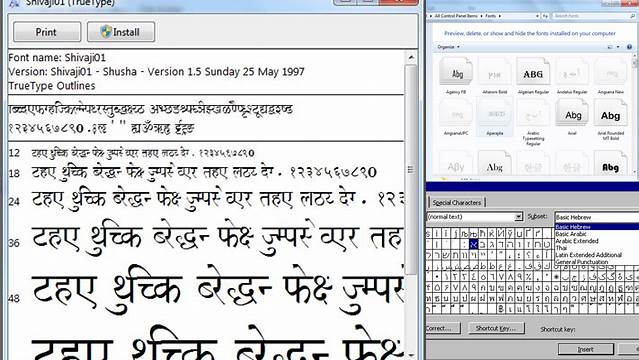
Marathi Font For MS Word 2010: Free Download & Guide
Hey guys, are you looking to add some Marathi flair to your documents in MS Word 2010? You're in luck! Getting a Marathi font for MS Word 2010 free download is easier than you might think. This guide is designed to walk you through the process step-by-step, ensuring you can type and read Marathi effortlessly. We'll cover everything from finding the right fonts to installing and using them in your documents. Let's dive in and make your Word experience a little more 'Maharashtra-mazing'!
1. Finding the Best Marathi Fonts for MS Word 2010
So, you want to jazz up your documents with some Marathi text, right? The first step in getting a Marathi font for MS Word 2010 free download is, obviously, finding some awesome fonts! The internet is your friend here, guys. There are tons of websites that offer free Marathi fonts. Just a quick Google search for "Marathi fonts free download" will give you a plethora of options. But before you start downloading every font you see, let's talk about a few things to consider. First off, make sure the website you're downloading from is reputable. You don't want to accidentally download any nasty viruses along with your fonts. Stick to well-known font websites or sites that are generally trusted. Secondly, pay attention to the font's license. While many Marathi fonts are free for personal use, some might require a license for commercial projects. Always check the terms of use! Now, when it comes to choosing a font, think about the style you need. Do you want a traditional look or something more modern? Some popular Marathi fonts include DevLys, Shivaji, and Laksmi. These are all great choices, and many variations are available. Explore different styles until you find one that speaks to you (or fits your document's needs!). You can usually preview the fonts on the website before downloading them, so you can see how they look with your text. Don't be afraid to try a few different fonts to see which one you like best. After all, you're the one who'll be using them. Remember, the right font can make your documents look more professional and engaging. Take your time, explore your options, and pick the perfect Marathi font for your MS Word 2010 projects. It's all about finding the right fit for your style and content.
1.2 Choosing the Right Marathi Font Style for Your Needs
Okay, now that you know where to find them, let's talk about picking the perfect Marathi font for MS Word 2010 free download. It's not just about finding a font; it's about finding the right font for your project! The style of your font says a lot about your document. Are you writing a formal letter, or a casual blog post? The answer will influence which font you choose. Traditional fonts, such as Shivaji or DevLys, are ideal for formal documents, textbooks, and anything that requires a classic look. These fonts often have a more ornate style that conveys a sense of authority and respect. If you're working on a more modern project, consider a contemporary font. These fonts are usually cleaner and more streamlined, which can make your text easier to read on screens. They're perfect for websites, presentations, and anything that needs to look fresh and up-to-date. Also, consider the readability of the font. Some Marathi fonts can be challenging to read, especially at smaller sizes. Make sure the font you choose is easy on the eyes, even when you're looking at a lot of text. Experiment with different font sizes and weights to ensure your text is clear and legible. Think about the purpose of your document. Are you designing a poster? A book? A website? Each of these projects might require a different font style. For example, a poster might benefit from a bold, eye-catching font, while a book would need a font that's comfortable to read for long periods. The best thing to do is try out several different fonts. Take some time to experiment with the fonts you've downloaded. Type a few sentences in each font and see how they look. Pay attention to the kerning (the spacing between letters) and the leading (the spacing between lines). These factors can affect how easy your text is to read. When you’re selecting your Marathi font for MS Word 2010 free download, remember that the goal is to enhance your document's message and make it appealing to your audience. Don't be afraid to try something new, and have fun with it!
2.3 Troubleshooting Common Font Installation Issues
Even though installing a Marathi font for MS Word 2010 free download is usually a piece of cake, sometimes things can go a bit sideways, right? Don't worry, it happens to the best of us. Here are a few common issues and how to fix them: First off, the font might not appear in MS Word 2010 after you install it. The fix is usually restarting MS Word, or even restarting your computer. This ensures that the software has had a chance to recognize the new font. If the font still doesn’t appear, double-check that you actually installed the font correctly. Go back to the "Fonts" section in your Control Panel and make sure the font is listed there. It's also possible that the font file is corrupted. Try downloading the font again from the source and reinstalling it. Another common issue is that the font might appear garbled or distorted in your document. This can be due to font compatibility issues. Make sure you’re using a font that's compatible with your version of Windows and MS Word 2010. Also, check if there's an updated version of the font available. There could be bugs in the older one that are causing issues. If you're still having trouble, try installing the font manually. This involves copying the font file to the "Fonts" folder in your Windows directory. Another troubleshooting step is to ensure you have the latest updates for Windows and MS Word 2010 installed. Sometimes, updates include fixes for font-related issues. Lastly, if all else fails, try contacting the font designer or the website where you downloaded the font. They might have specific troubleshooting tips or know of any existing issues with their font. Don't worry if you encounter some bumps; most of these are easily resolved! Just follow these tips, and you'll get your Marathi font for MS Word 2010 free download installed and working in no time.
3. Using Your New Marathi Fonts in MS Word 2010
Alright, the fonts are installed, you did your Marathi font for MS Word 2010 free download, and you're ready to rock! Using Marathi fonts in MS Word 2010 is similar to using any other font. Here's how you get started:
3.1 Selecting and Applying Your Marathi Font in MS Word 2010
Okay, so you've done the hard work and got your Marathi font for MS Word 2010 free download and installed. Now it's time to put it to good use! In MS Word 2010, it's super easy to select and apply your new Marathi font. First things first, open the Word document where you want to use the font. Then, highlight the text you want to change to Marathi. Alternatively, if you want to apply the font to the entire document, you can select all the text by pressing Ctrl+A. Next, go to the "Home" tab in the ribbon at the top of the Word window. Look for the font dropdown menu in the "Font" section. This is usually located at the top left corner of the ribbon. Click on the dropdown menu to see a list of all the fonts available on your system. Scroll through the list until you find your newly installed Marathi font. The font names are typically written in English. Click on the font name to select it. The selected text in your document will then change to the Marathi font. If you want to apply the Marathi font to new text you type, simply select the font from the dropdown menu before you start typing. You can also adjust the font size and style (bold, italic, underline) using the options in the "Font" section of the ribbon. Don't hesitate to experiment with different font sizes and styles to find the best look for your document. Using your new Marathi font for MS Word 2010 free download is all about getting creative. So get in there, select your text, choose your font, and start creating!
3.2 Typing Marathi Text: Keyboard Layout and Input Methods
So, you've got your shiny new Marathi font for MS Word 2010 free download installed, but how do you actually type in Marathi? It's all about the right keyboard layout and input methods. The most common way to type Marathi is using a Marathi keyboard layout. This layout arranges the Marathi letters and symbols on your keyboard. You can usually find this layout by switching your input language to Marathi in your operating system settings. In Windows, you can usually do this by clicking on the language icon in the system tray (usually at the bottom right corner of your screen) and selecting Marathi. Another popular input method is using an online transliteration tool. These tools allow you to type in English and convert the text into Marathi script. This is great if you're not familiar with the Marathi keyboard layout. You can find many of these tools online for free. Some of the input methods include software-based keyboards. These programs display a virtual keyboard on your screen. You can click the keys with your mouse or use the keyboard to type in Marathi. Explore these methods and find the one that works best for you. Many text editors, including MS Word, also offer phonetic input. This means you can type Marathi phonetically using the English alphabet. The text editor will then automatically convert it into Marathi script. Whichever method you choose, practice is the key. The more you practice, the more comfortable you'll become with typing in Marathi. Remember, there are tons of resources and tutorials available online. Learning to type in Marathi is a rewarding experience, allowing you to communicate in your language seamlessly. This means you don’t just download the Marathi font for MS Word 2010 free download, but you also learn how to use it.
3.3 Formatting and Styling Your Marathi Text in MS Word 2010
Now that you have your Marathi font for MS Word 2010 free download and know how to type, let's jazz up your Marathi text. Formatting and styling your text is key to making your documents look professional and easy to read. After selecting your Marathi font, you can adjust the font size using the font size dropdown menu in the "Home" tab. Choose a size that's comfortable for your audience. Make the text bigger for headings and subheadings. Consider using bold or italics to emphasize certain words or phrases. Use the bold button (B) or italics button (I) in the "Font" section of the "Home" tab. Using the underline button (U) can also emphasize the words. You can change the text color to make it pop. Use the font color button in the "Font" section to select different colors. Be mindful of the colors you use. Use contrasting colors so your text is easily readable. You can use the alignment options (left, right, center, justify) to make your text line up beautifully. Consider the overall layout and the intended use. Adjust the line spacing to improve readability. Use the line spacing button in the "Paragraph" section of the "Home" tab. You can adjust the space between lines of text to improve the visual flow. Apply bullet points or numbering to create lists. Bullet points and numbering can organize information. Use paragraph styles to format your text quickly. Styles apply a consistent format to all your text. Use headings to structure your document and make it easy to navigate. Headings are a key element of structuring the content. Remember, the best formatting and styling choices will depend on the purpose of your document and the target audience. Experiment with different formatting options until you find what works best for you. Formatting is important, so after you download your Marathi font for MS Word 2010 free download, take time to familiarize yourself with the tools.
4. Advanced Tips and Tricks for Using Marathi Fonts
Ready to take your Marathi document skills to the next level? Here are some advanced tips and tricks to help you get the most out of your Marathi font for MS Word 2010 free download.
4.1 Creating Professional Marathi Documents: Best Practices
Okay, you’ve got your Marathi font for MS Word 2010 free download – now, let's talk about how to make your Marathi documents look professional. First off, consistency is key. Stick to the same font style and size throughout your document, and this will ensure that your document looks neat and polished. Use headings and subheadings to organize your content. They help the reader navigate your document easily and understand the structure. Use the correct formatting options for headings, body text, and lists. This ensures consistency and readability. Proofread your document carefully. Check for typos, grammatical errors, and formatting inconsistencies. Proofreading will ensure the document is high quality. Ensure proper spacing between paragraphs, and this will ensure readability. Don't overcrowd the page. Use enough white space to make your document look clean and easy on the eyes. Use a professional template. Use pre-designed templates in MS Word to create a consistent and professional look. Ensure the content flows logically. Make sure your ideas are presented clearly and logically to make your document easy to understand. Use visuals such as images, charts, and graphs to break up the text. This will ensure that the documents are engaging and visually appealing. Use colors, but be mindful of their impact on readability. Use contrasting colors and avoid excessive color use. Ensure the text is aligned properly. Align your text appropriately, such as left-aligned for body text and centered for headings. Create a table of contents for longer documents. This helps readers navigate your document and find information. Remember, the key to creating professional Marathi documents is to pay attention to detail. The key to success starts with the Marathi font for MS Word 2010 free download.
4.2 Integrating Marathi Fonts with Other Applications
So you’ve not only found a Marathi font for MS Word 2010 free download but are now wondering how to use it elsewhere? Integrating your Marathi font with other applications can open up many possibilities. First, most applications use the same font files, so once you install your Marathi font on your computer, it will be available in most applications. This includes programs like PowerPoint, Adobe Photoshop, and other word processors. When working with other applications, make sure that the application supports the Marathi Unicode characters. Most modern applications will. However, it's always good to check. If you are using a program that does not support the Marathi Unicode characters, you might need to convert your text to a different format. The Marathi font you chose for MS Word 2010 should also be supported in other Microsoft applications, such as Excel and Outlook. Ensure that the font is selected within the other application, and that will ensure your text appears correctly. For web design and development, you can use Marathi fonts for creating website content. You can include the font file in your CSS styles. This will ensure that the text renders correctly on the web. You can also use online font embedding services, such as Google Fonts, to include Marathi fonts on your website. When using Marathi fonts in other applications, it's important to test the font and text display in all the intended applications. This will help you ensure that everything appears as expected. You can do so after you download your Marathi font for MS Word 2010 free download.
4.3 Customizing and Modifying Your Marathi Fonts for Specific Needs
So, you have got your Marathi font for MS Word 2010 free download and are keen to customize it? Customizing and modifying Marathi fonts can be a fantastic way to tailor your documents. While you cannot directly modify the font file itself, there are a few things you can do to customize its use. You can modify the size, color, and style of the font within MS Word 2010. This will ensure your text is customized to your liking. You can combine the Marathi font with other fonts in your documents, for creative effect. This could make your document very unique. You can create custom styles within MS Word 2010 to apply specific formatting to your Marathi text. This can include custom spacing, indentation, and other formatting settings. You can use special characters and symbols, available within your Marathi font, by using the character map in Windows. There may be characters available for different purposes. If you need very specific customizations, you might explore font editing software. However, this is a more advanced process and requires some technical knowledge. You can try to adjust the kerning and tracking of your Marathi text. Kerning refers to the space between individual letters. Tracking refers to the overall spacing between all the letters in a block of text. Use formatting tools to adjust the kerning and tracking. Finally, experiment with different layouts, and see what looks best. There’s a lot of possibilities with your new Marathi font for MS Word 2010 free download.
5. Common Questions and Answers
Let's address some of the most frequent questions about Marathi font for MS Word 2010 free download to help you out.
5.1 Can I Use These Fonts for Commercial Purposes? Licensing Explained
One of the most important questions to ask yourself before you start using your Marathi font for MS Word 2010 free download is: can I use these for commercial purposes? The answer is usually dependent on the license. Not all free fonts are created equal. Many fonts are free for personal use but require a license if you want to use them for commercial projects. Check the license agreement that comes with the font. This is usually included in a text file with the font file itself. It outlines the terms of use, including whether or not you can use the font for commercial projects. Pay attention to the definition of “commercial use”. This could include using the font in your business, marketing materials, and projects for clients. If the license says you can’t use the font commercially, then don’t. There are usually alternative options that are available. You might want to consider purchasing a commercial license. Some font designers offer commercial licenses that will give you the rights to use the font in your commercial projects. You may need to buy it on their website. Another option is to use fonts that are specifically designed for commercial use. Look for fonts labeled as “open-source” or “free for commercial use”. These fonts come with a license. You can usually use them for your commercial projects. Always make sure to read the license carefully. This will help you understand the terms of use and avoid any legal issues. If you’re still unsure about the terms of use, it is a good idea to contact the font designer or the website where you downloaded the font. They can clarify the license terms for you. Remember, the license will also be present with the Marathi font for MS Word 2010 free download.
5.2 What If My Marathi Font Doesn't Display Correctly?
Ah, a common headache! You’ve done your Marathi font for MS Word 2010 free download, and everything seems right, but the Marathi font just doesn't display correctly. Don't worry, we’ve got you. First, make sure the font is installed correctly. Go through the font installation steps again to ensure everything is set up correctly. If you are using an older version of MS Word, it might not support the font. Upgrading to a newer version could help. Also, if the font still doesn’t appear, ensure your Windows operating system supports the font. Make sure you have the necessary language support installed. You can add the Marathi language in your Windows settings. Then, make sure that you are using the correct character encoding for your Marathi text. The most common character encoding for Marathi is Unicode (UTF-8). Check the character encoding settings in your document. If you’re copying and pasting Marathi text from another source, make sure the text is being copied correctly. Use the "Paste Special" option in MS Word to ensure the formatting is copied correctly. It might also be an issue related to the font. Some fonts are not fully compatible with all versions of MS Word. Try a different font. Ensure the font is designed for Windows. If you are still having trouble, contact the font designer or the website where you downloaded the font. They might have specific troubleshooting tips. Hopefully, with these tips, you’ll get your Marathi font for MS Word 2010 free download working without issues.
5.3 Are There Any Alternatives to Using Marathi Fonts?
Alright, so what if you’re having trouble with your Marathi font for MS Word 2010 free download? Are there any alternatives? Yes, of course! You can use transliteration tools. Transliteration is the process of converting text from one script to another. You can type in English and the tool will convert it to Marathi. This is great if you are not familiar with the Marathi keyboard layout. Another option is to use online Marathi keyboards. These keyboards allow you to type in Marathi directly through a web browser. You can copy and paste the text into your MS Word document. If you only need to use a few Marathi words or phrases, you can use an online Marathi dictionary or translation service. These tools often provide the correct Marathi text you can copy and paste into your document. Another option is to use images containing Marathi text. You can create the Marathi text in an image and insert the image into your MS Word document. Keep in mind that the text will not be editable. If all else fails, and you're on a tight deadline, consider asking someone who knows Marathi to help you type the text. They can then format it in your document. Remember that using the correct Marathi font is best. You can use the alternatives if you have problems with your Marathi font for MS Word 2010 free download.